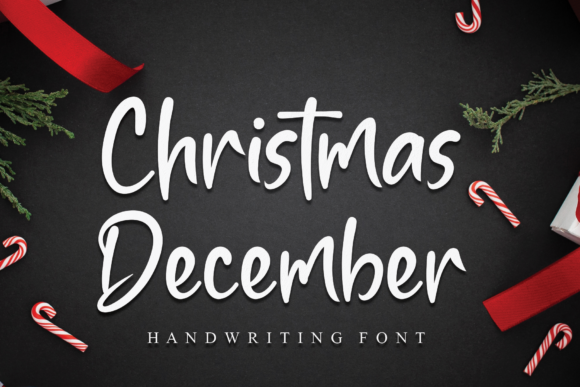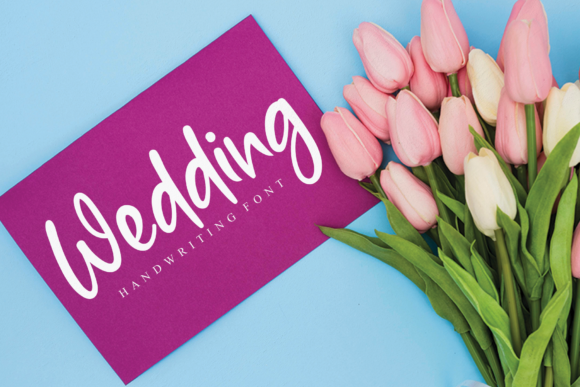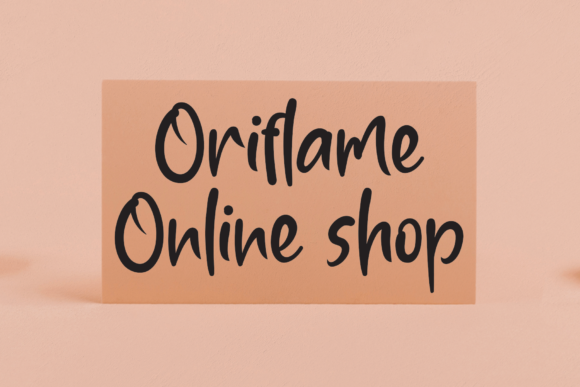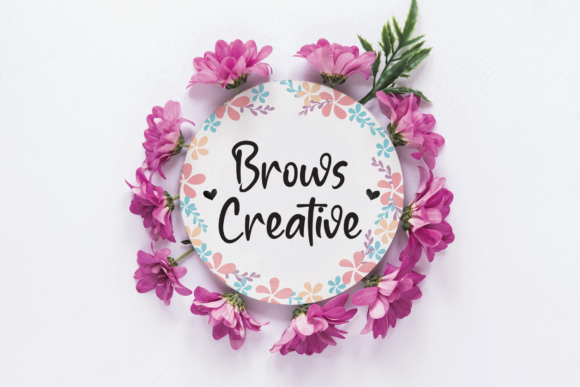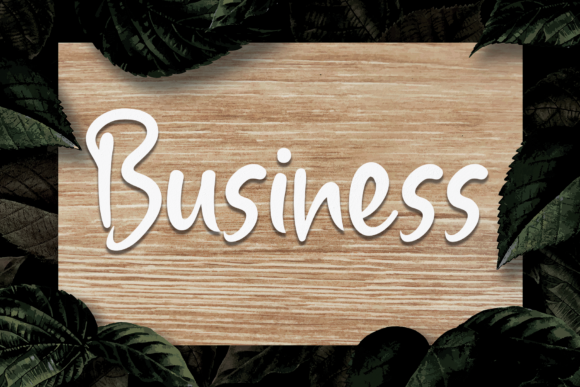
About Christmas December Font
Christmas December is a sweet and round lettered handwritten font. Not too thin and not too thick, balanced and varied, this font was designed to enhance the beauty of your projects.